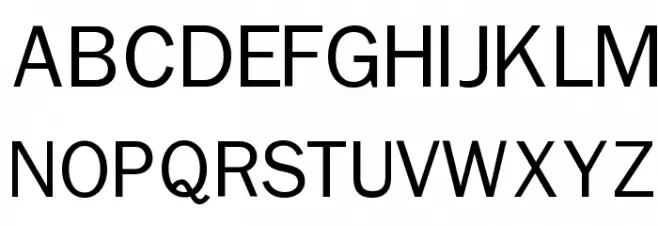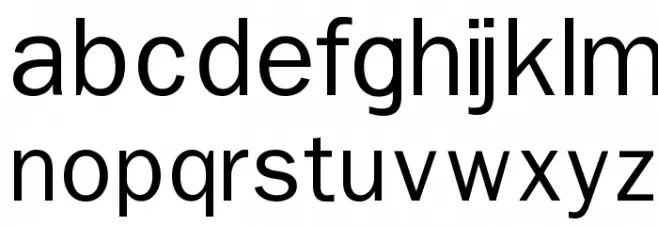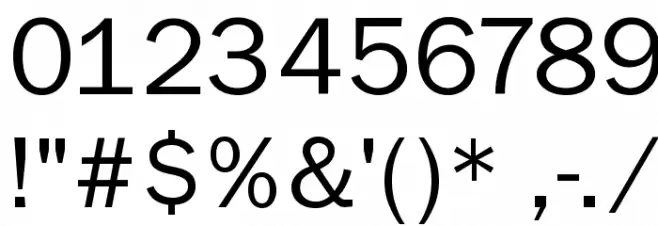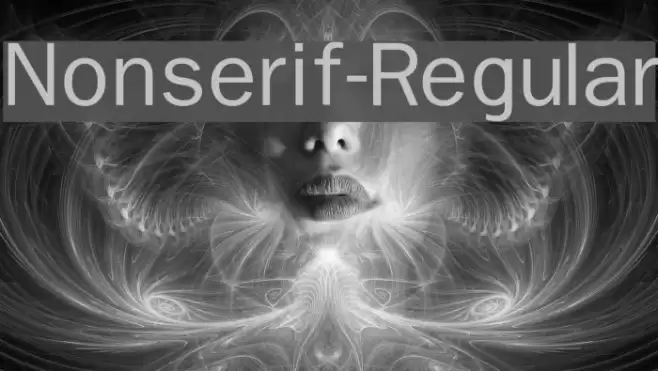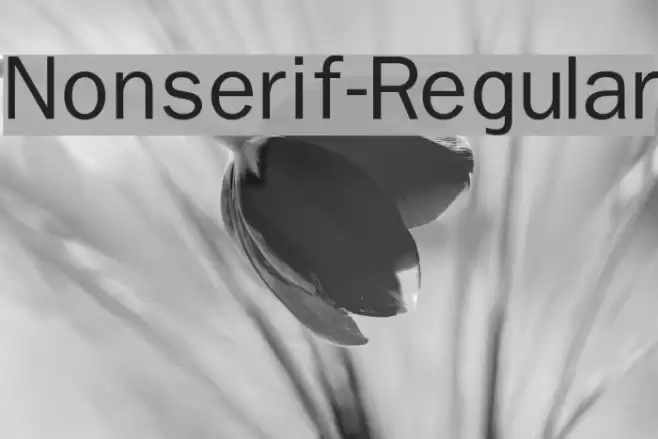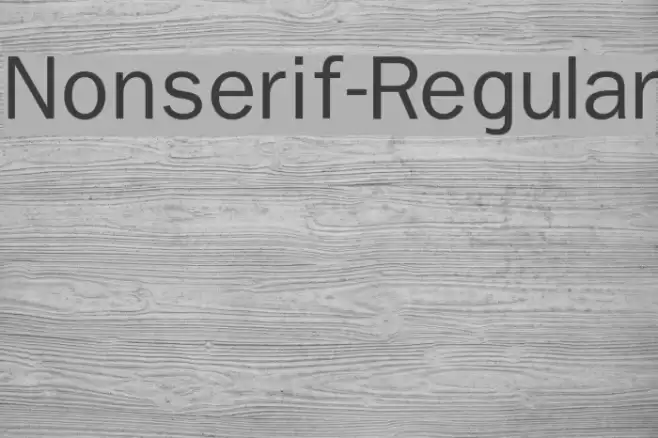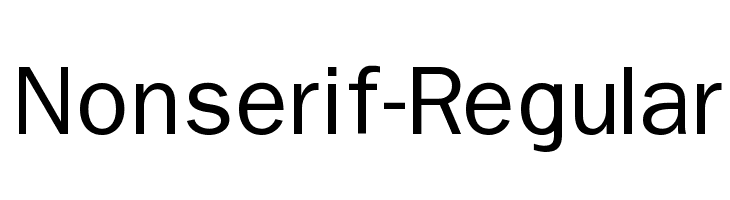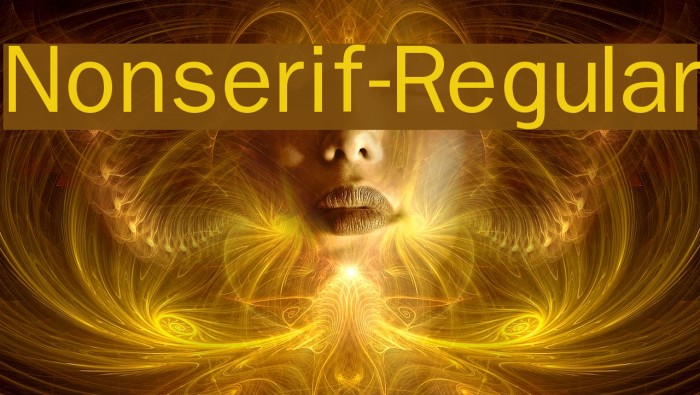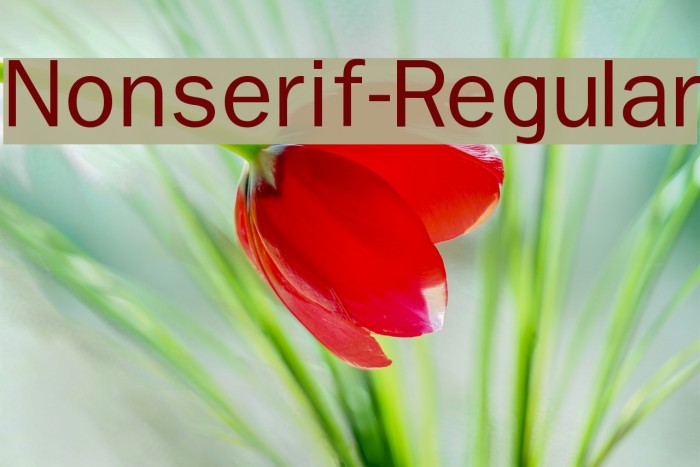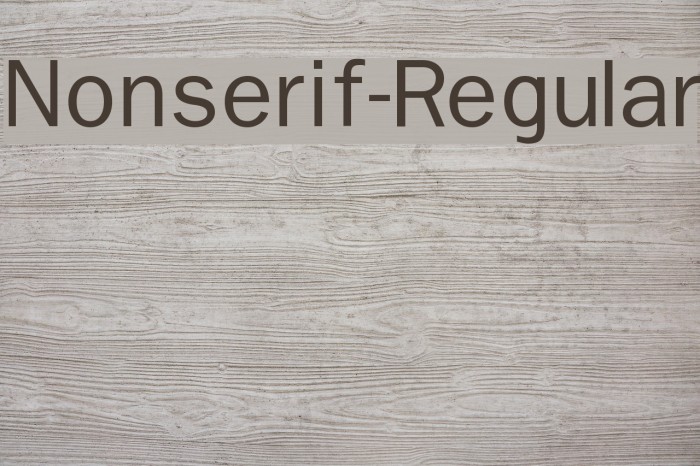
Nonserif-Regular
This typeface features a clean and modern sans-serif design, characterized by its simplicity and readability. The letters are evenly spaced with consistent stroke widths, providing a balanced and harmonious appearance. The uppercase and lowercase letters are well-proportioned, making it suitable for a variety of applications. The numerals are clear and distinct, ensuring legibility in both print and digital formats. Special characters are designed with the same attention to detail, maintaining the overall aesthetic of the typeface. Its versatility makes it ideal for both professional and creative projects.
A clean, modern sans-serif typeface with balanced proportions and consistent stroke widths.
- Proposed Projects: Ideal for branding, web design, advertising, and editorial projects where clarity and modernity are essential.